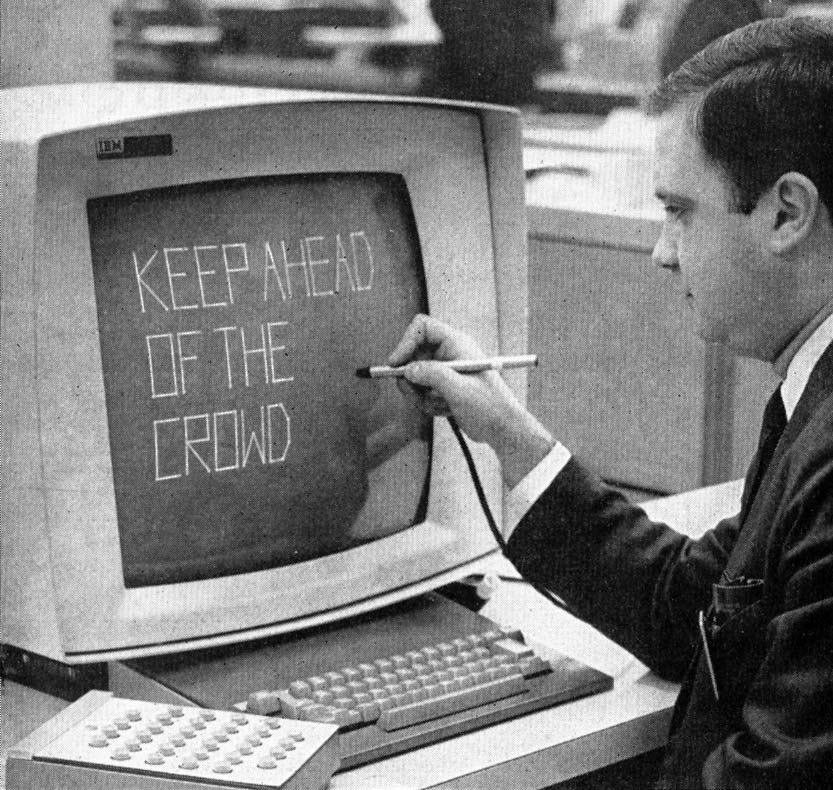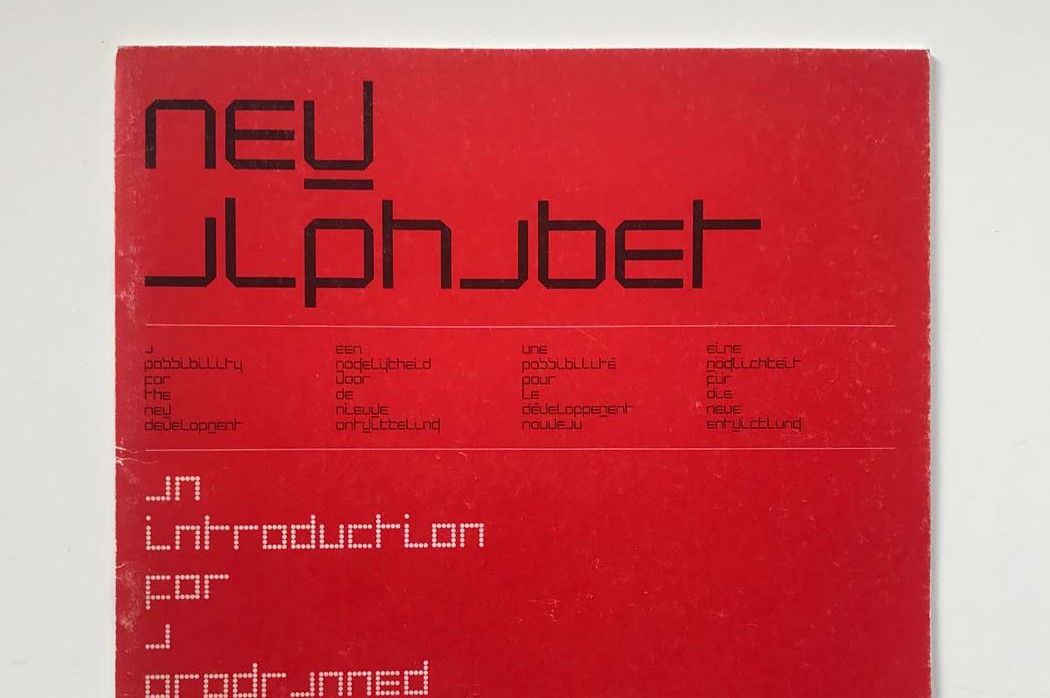
Display Technology
The design of digital fonts is significantly influenced by the technical capabilities of the times. Besides font formats and technologies, also displays shaped a lot how digital typefaces looked like. From early cathode-ray tube (CRT) displays to today’s high-resolution retina screens, the way fonts are rendered and perceived has evolved significantly, with each advancement in hardware introducing new possibilities for typography.
man writing the words keep ahead of the crowd with pen on IBM computer screen from 1964
Image of IBM 2250 Graphics Display Unit
The evolution of digital displays began with the cathode-ray tube (CRT) in 1946, followed by the IBMs first Graphics Display Unit in 1964, and later the first home computer from Macintosh in 1984, which introduced a graphical user interface (GUI). Each advancment required unique approaches to typography, as displays moved from scan lines to pixels and, eventually, to high-resolution vector-based rendering.
A key example of this influence is Wim Crouwel’s New Alphabet typeface, designed in 1967 to accommodate the technical limitations of CRT screens. Crouwel’s approach broke away from traditional typography, creating a typeface optimized for digital displays by using a systematic, rule-based method that considered the horizontal scan lines of early digital screens.
red type specimen of geometric new alphabet typeface
Image of New alphabet by Wim Crouwel, 1967